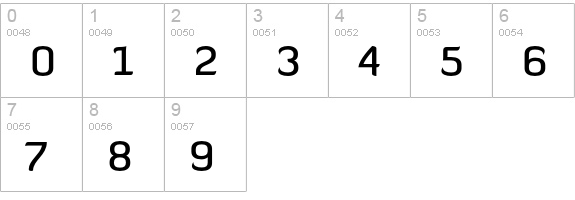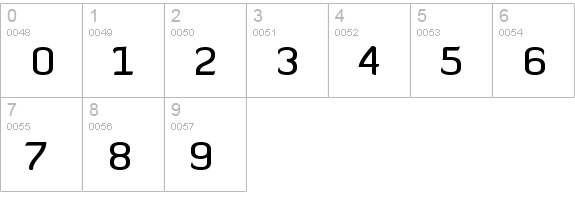
Diavlo Medium Regular Font Details
Diavlo Medium Regular is a balanced, medium-weight variant in the Diavlo typeface family \xE2\x80\x94 well suited to sub-headlines, navigation, and balanced editorial work.
Introducing Diavlo Medium Regular font, a sleek and modern typeface that effortlessly blends elegance with readability. This versatile font is perfect for a wide range of design projects, from branding to editorial design and everything in between. With its clean lines and balanced proportions, Diavlo Medium Regular exudes a sense of sophistication and style that will elevate any project. And the best part? Diavlo Medium Regular is available for free download at FontsMarket.com. Simply head over to the website and start incorporating this stunning font into your designs today. Whether you're working on a logo, website, or print materials, Diavlo Medium Regular is sure to make a lasting impression. Don't miss out on the opportunity to enhance your designs with this exceptional font. Download Diavlo Medium Regular now and take your projects to the next level.